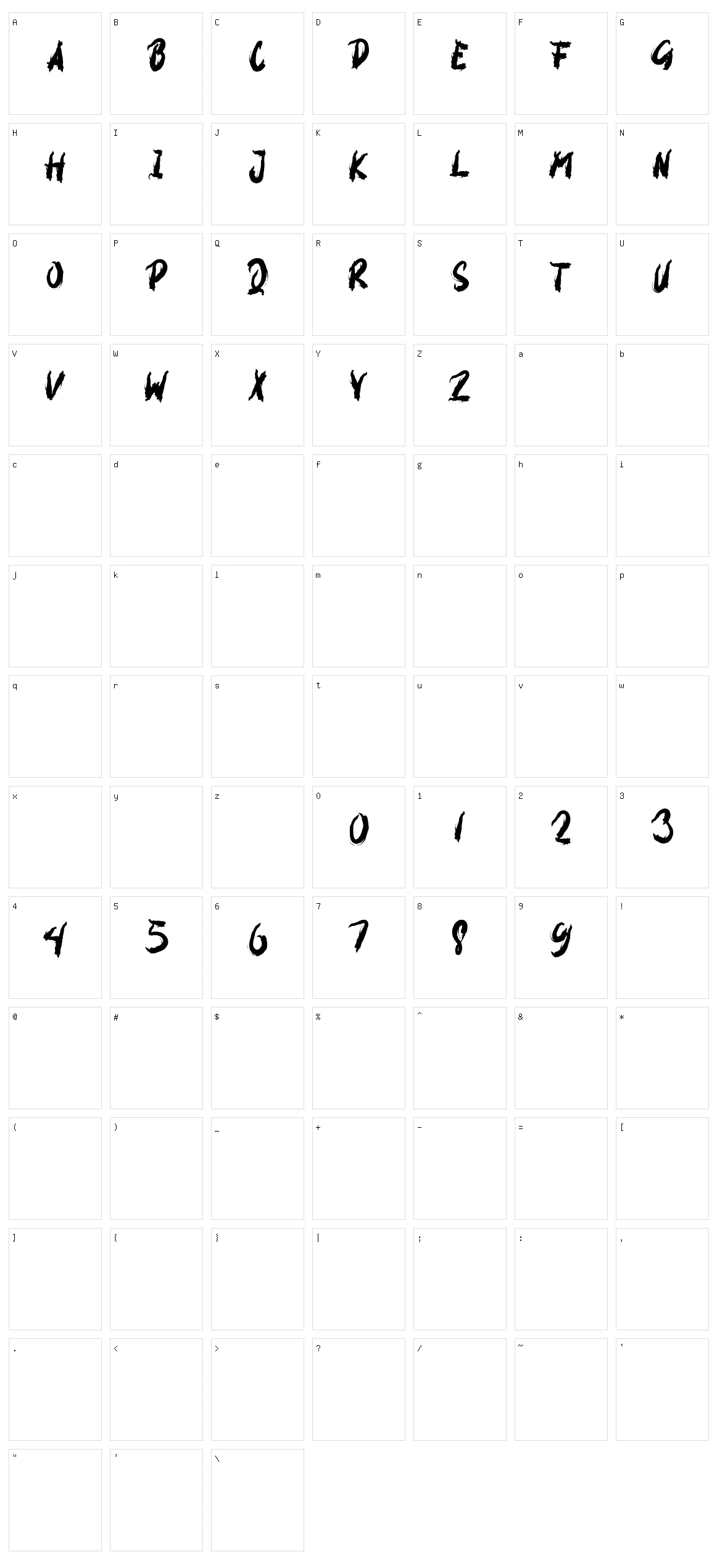
The free font Goodbye is carefully designed by AminMario, showcasing a thoughtful balance of creativity and usability and falls under the Trash font style. When you download the ZIP file, it contains only 88.71 KB of font files, making it lightweight and quick to download. Please review the license details below to understand permitted usage and distribution rights. If license information is not available, we recommend using this font for personal projects only or contacting the author directly for commercial usage permissions.